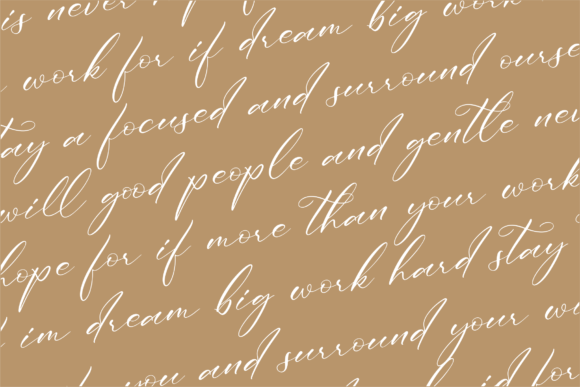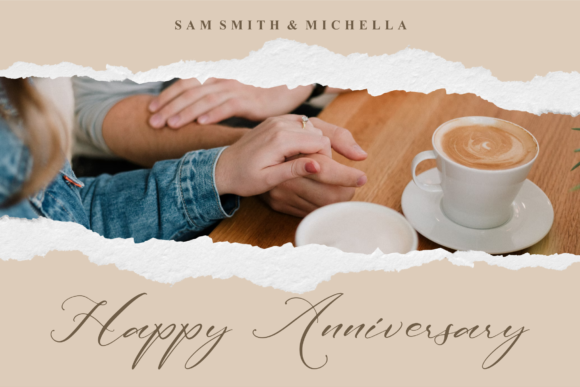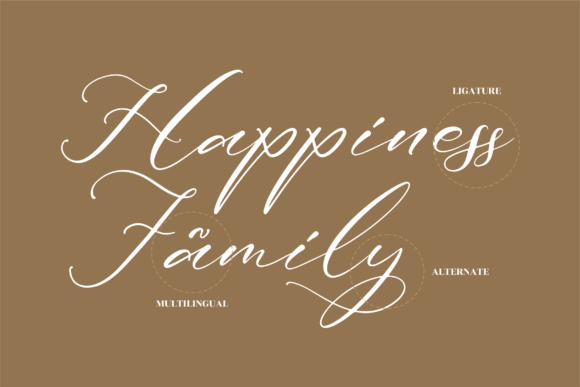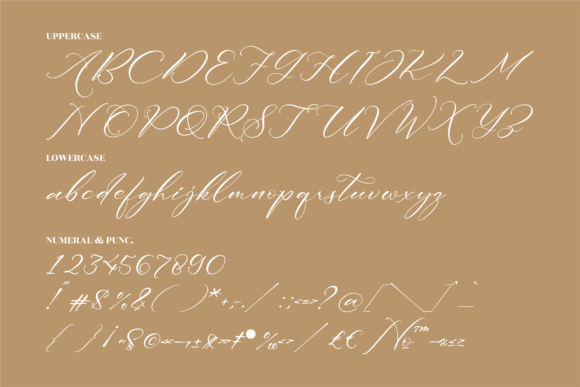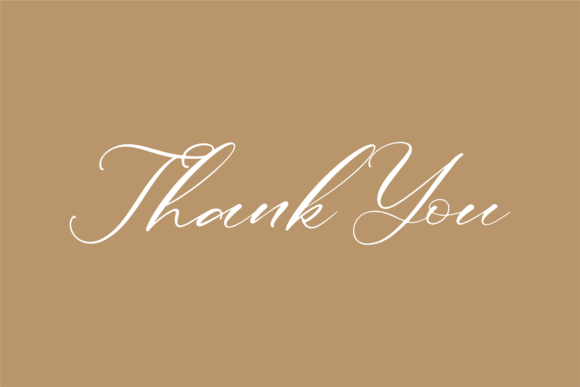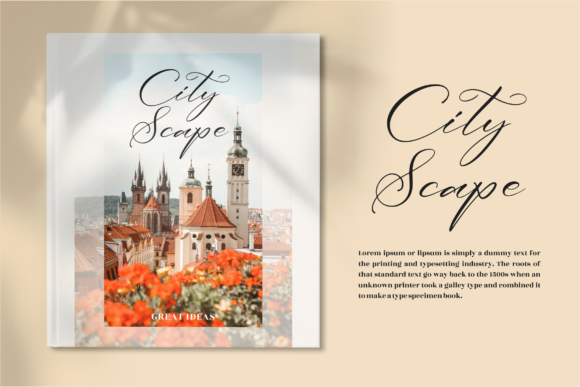
About Andalusia Felistica Font
Andalusia Felistica is a lovely and delicate script font that exudes elegance and class. This font was particularly crafted for those who need a beautiful and refreshing look to their designs.